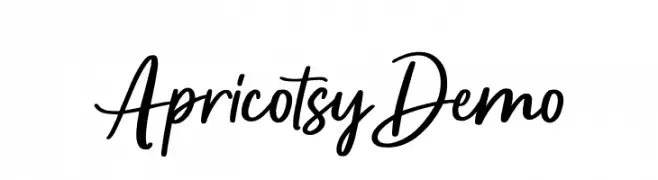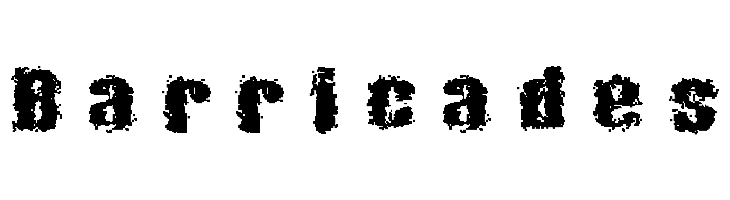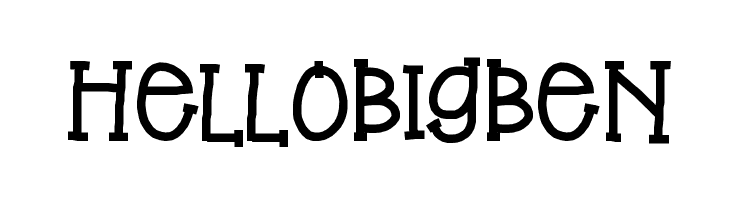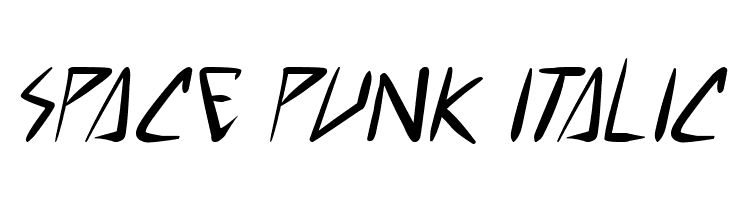
( Fonts by Steve Cloutier - www.cloutierfontes.ca )
A bold, distressed font with a grunge texture for an edgy, rebellious look.
A lively handwritten font with fluid, connected strokes and a playful, informal style.
( Fonts by Iconian Fonts )
A bold, distressed font with a rugged, textured appearance.
( Fonts by junkohanhero )
A playful, bold handwritten font with a whimsical and informal style.
A bold, geometric font with a modern, futuristic style and condensed width.